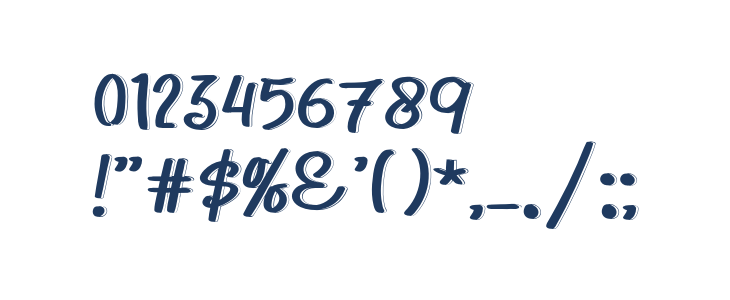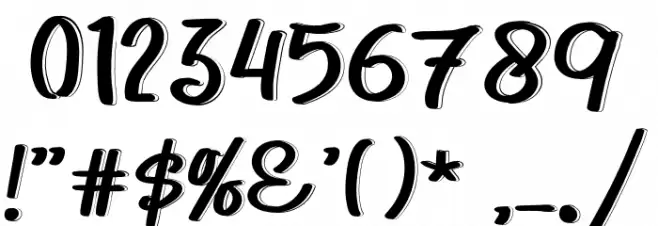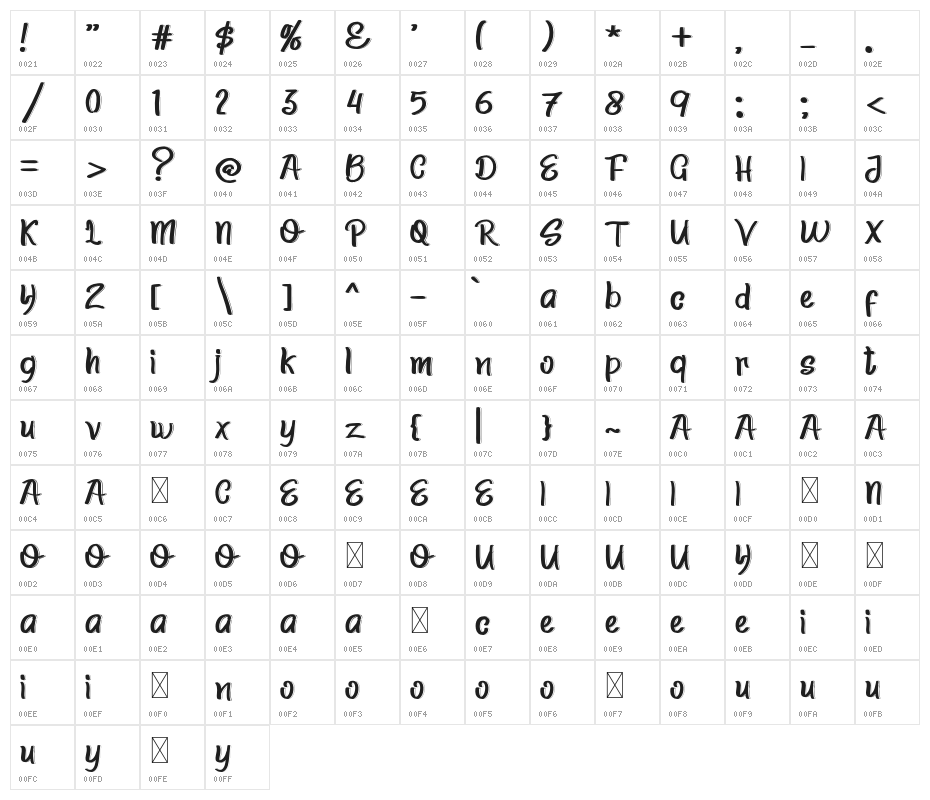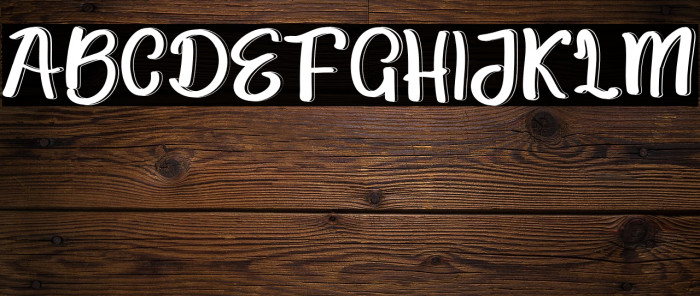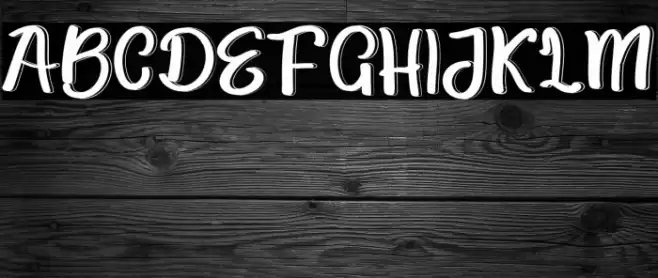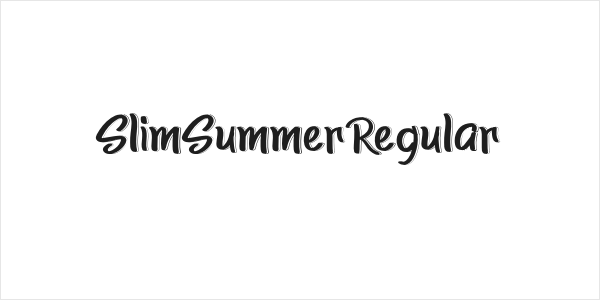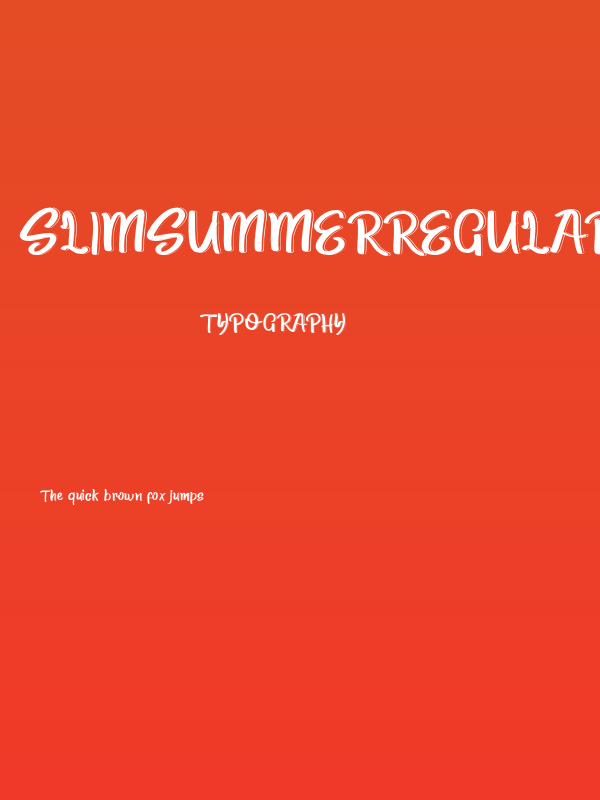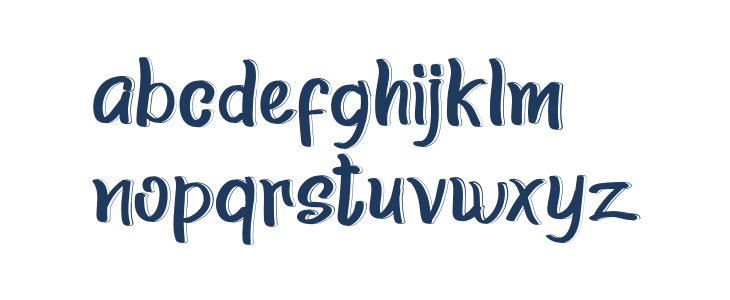
SlimSummerRegular Font
SlimSummerRegular Description
This font features a playful and dynamic style with a handwritten appearance. The characters are bold and slightly slanted, giving them a lively and energetic feel. The strokes are thick, with a noticeable contrast between the thick and thin parts, adding to the font's expressiveness. The letters have a casual, informal look, making them suitable for creative and fun projects. The spacing between characters is relatively tight, which enhances the overall compact and cohesive appearance of the text. This font is ideal for designs that require a personal touch and a sense of movement.